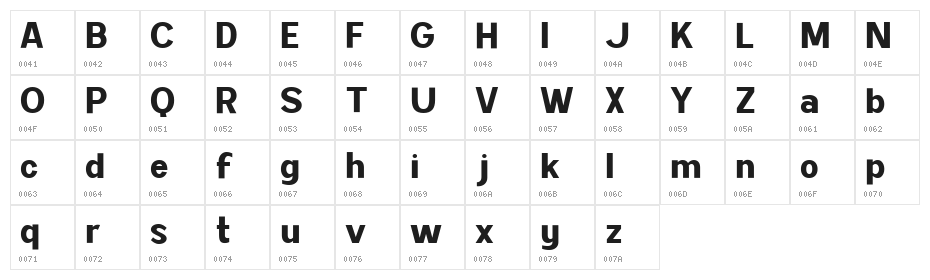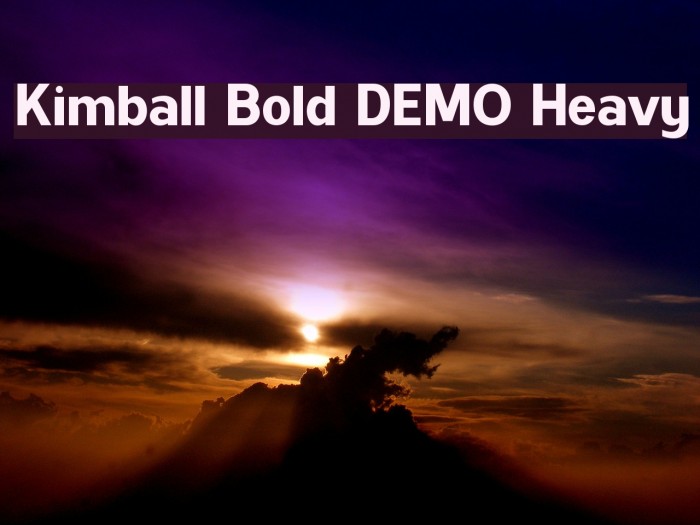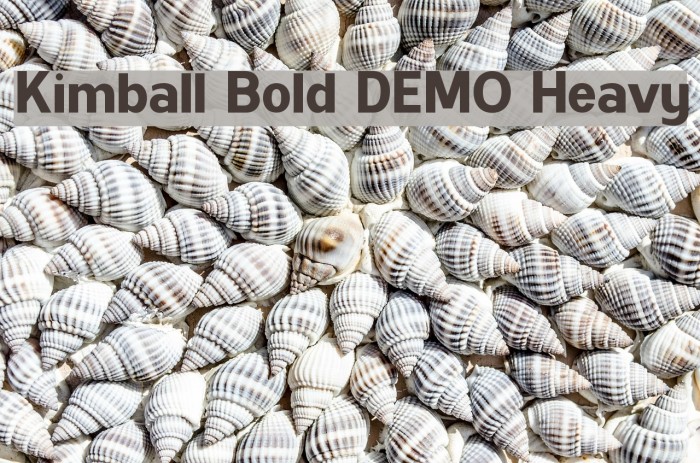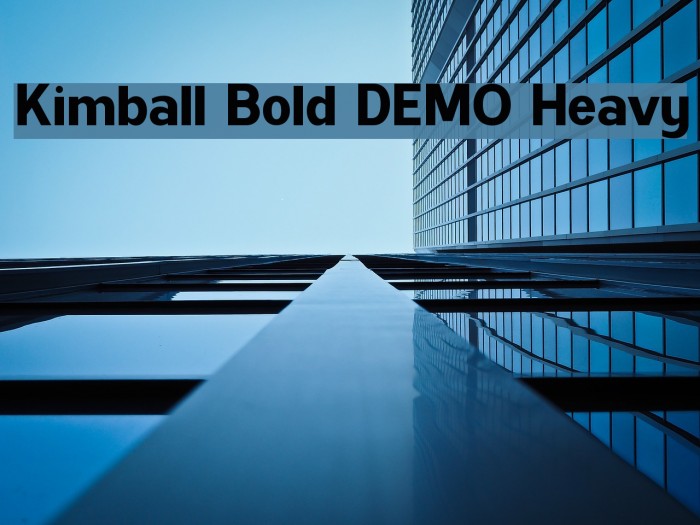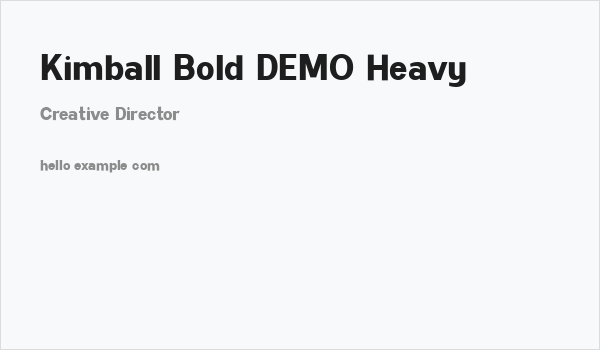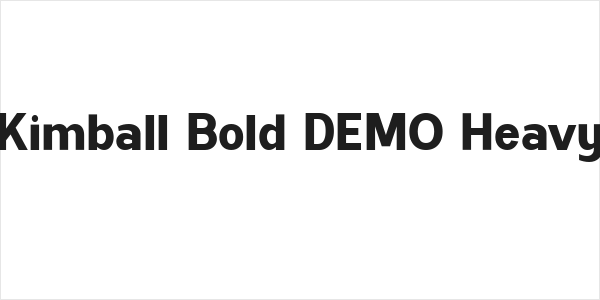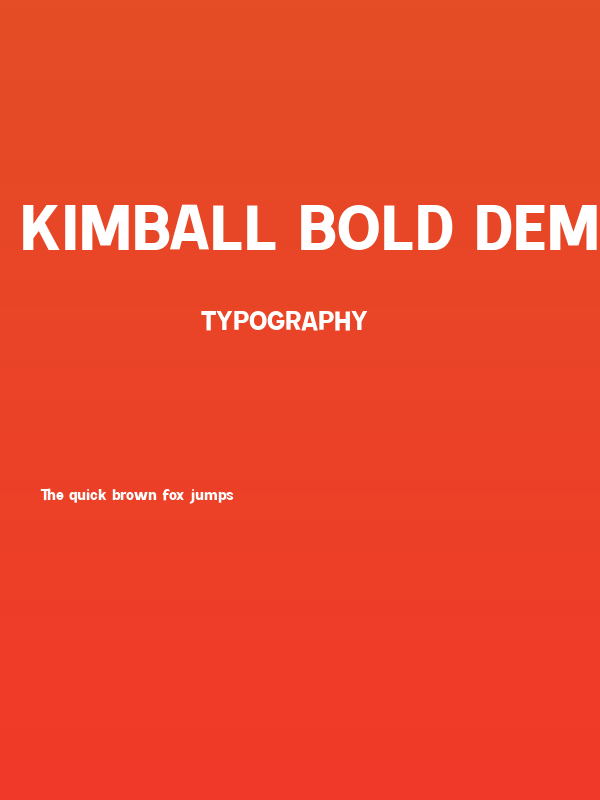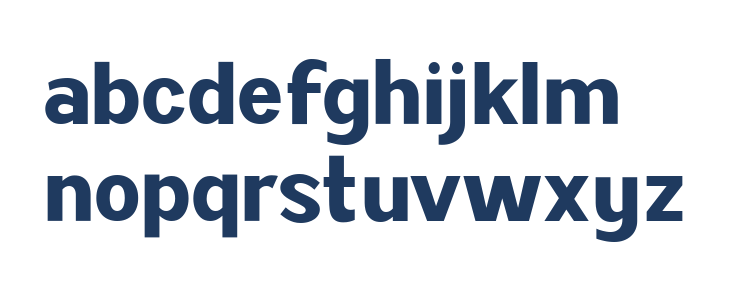
Kimball Bold DEMO Heavy Font
Kimball Bold DEMO Heavy Description
This typeface exhibits a bold and assertive presence with its heavy weight and clean lines. The characters are designed with a modern aesthetic, featuring uniform stroke widths that contribute to its strong and impactful appearance. The uppercase and lowercase letters maintain a consistent style, ensuring readability and visual harmony. The font's geometric structure and balanced proportions make it suitable for a variety of design applications. Its versatility is enhanced by the clear distinction between each character, allowing for effective communication in both digital and print media.
| Proposed Projects | Ideal for branding, headlines, posters, and digital media where a strong visual impact is required. |